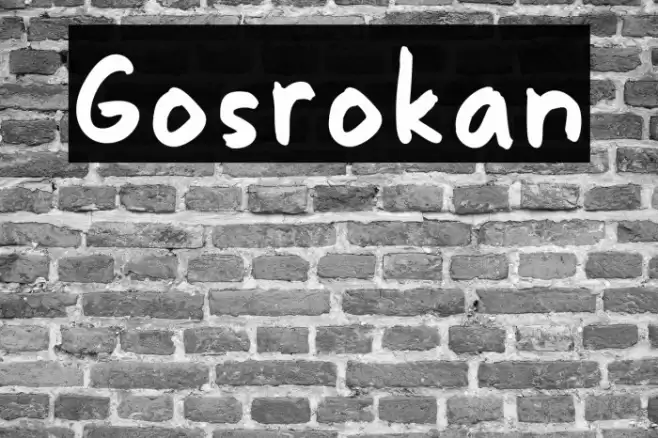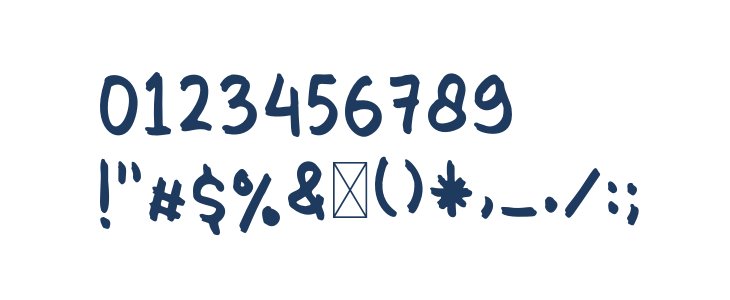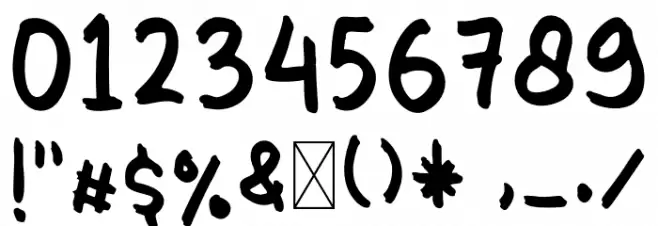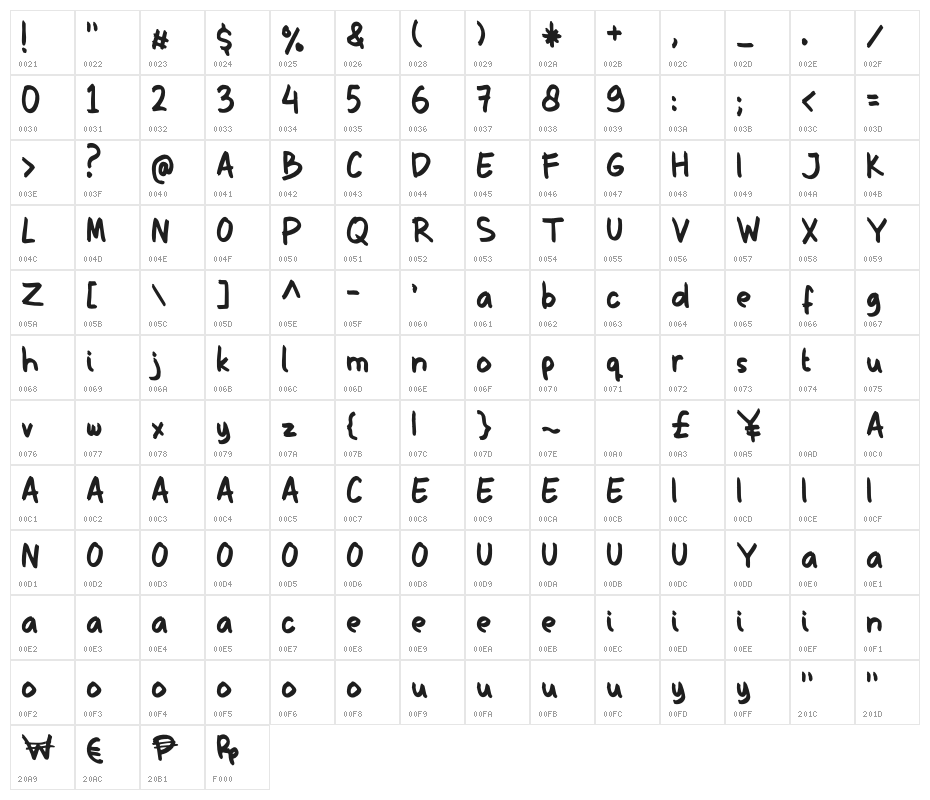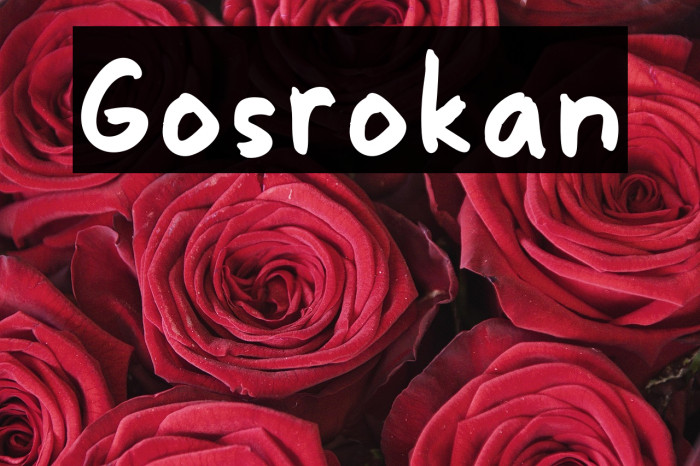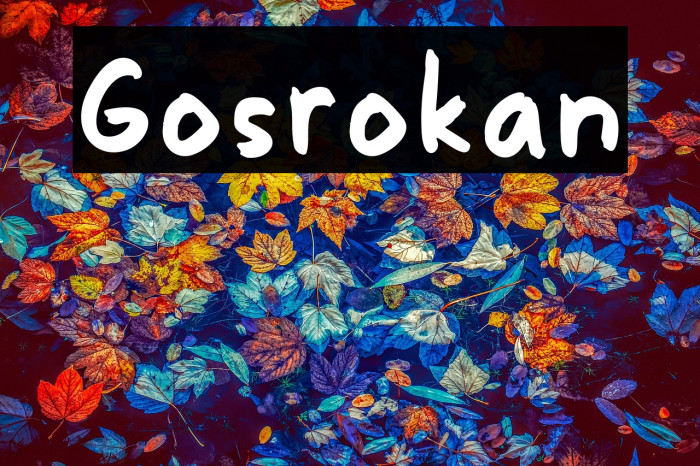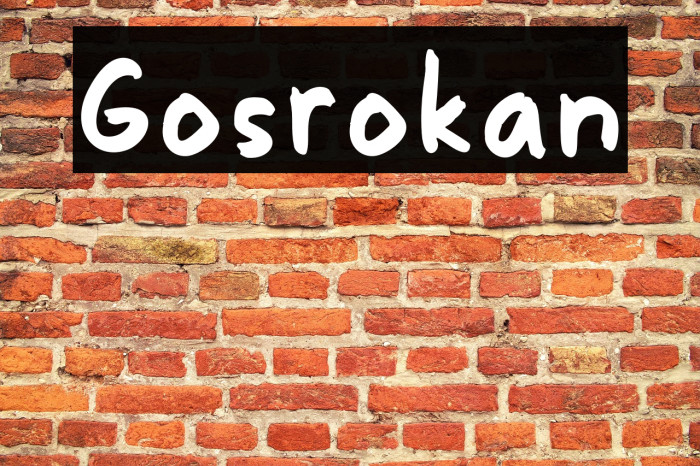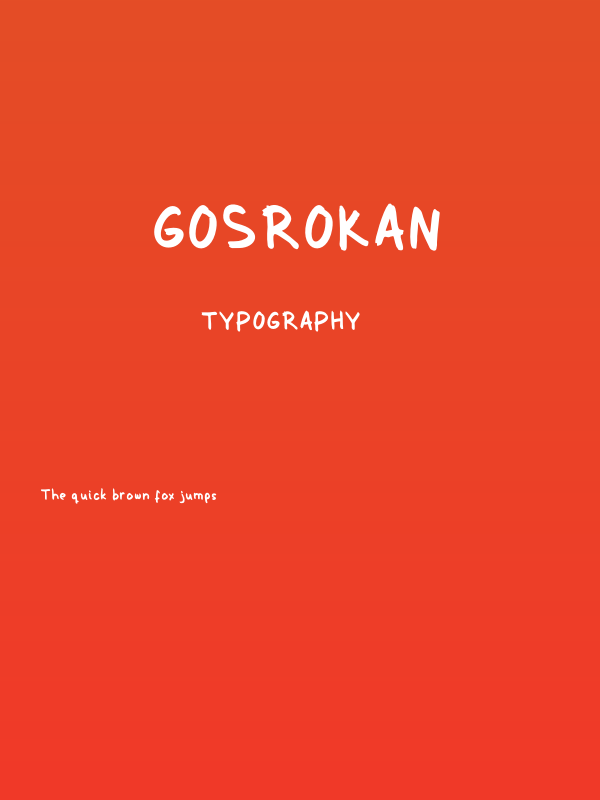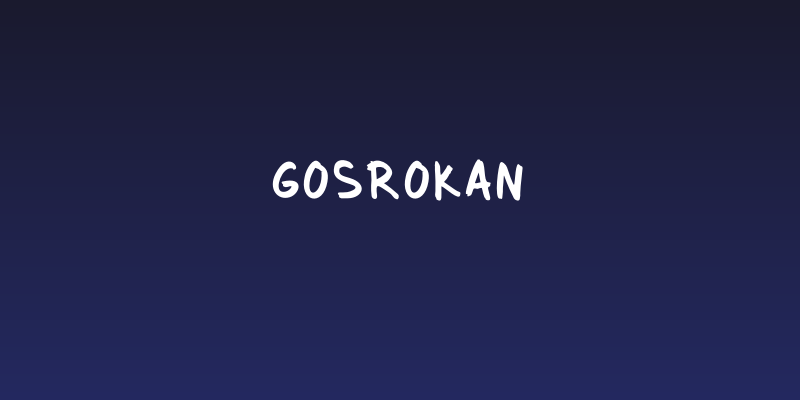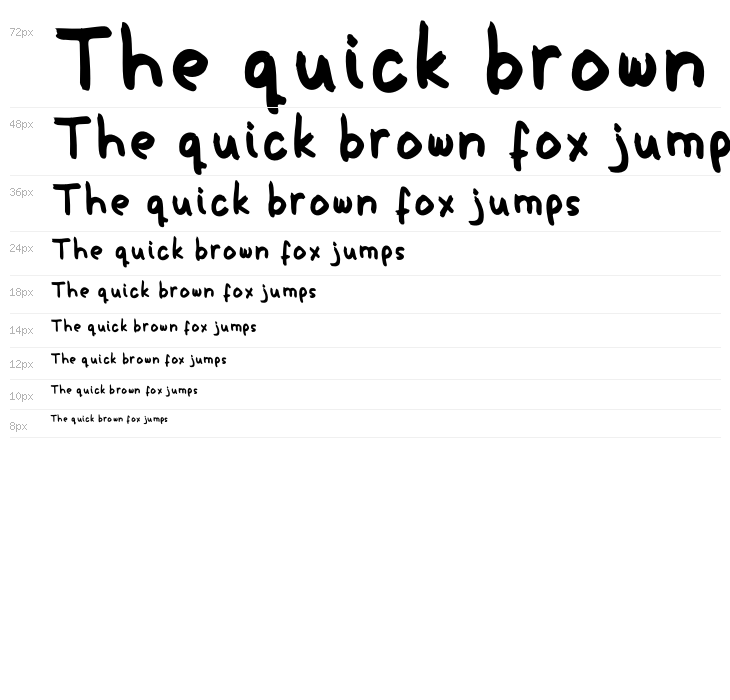
Gosrokan Font
Gosrokan Description
This font features a playful, handwritten style with a casual and friendly appearance. The letters are bold and slightly irregular, giving them a dynamic and lively feel. The uppercase and lowercase characters maintain a consistent style, with rounded edges and a slightly uneven baseline that adds to the informal aesthetic. The numerals and special characters follow the same design principles, ensuring a cohesive look across all glyphs. This font's organic and approachable nature makes it suitable for projects that aim to convey warmth and personality.
A playful, handwritten font with a bold and casual style from Regular fonts.
- Proposed Projects: Ideal for children's books, greeting cards, casual branding, and social media graphics.
- Overall Style: Casual
- Use Case: Headlines, Informal text, Branding